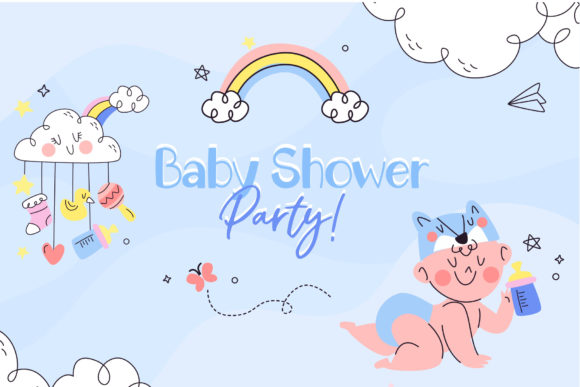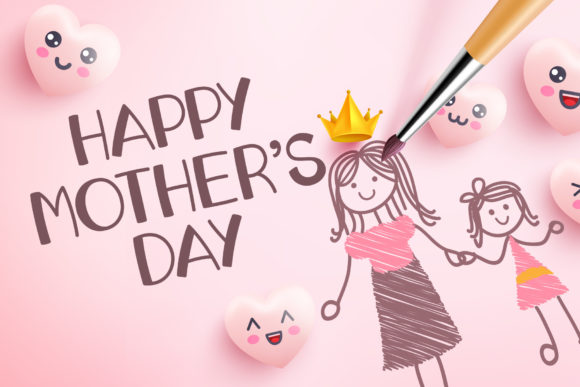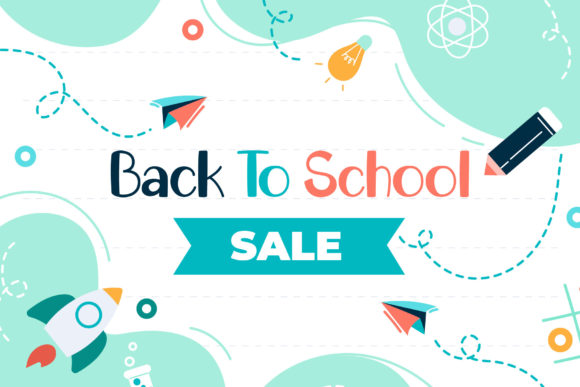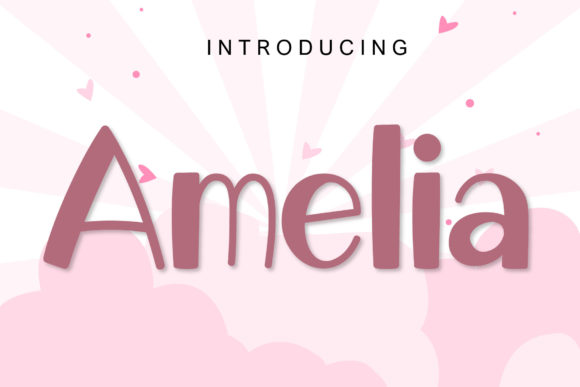
Introducing Amelia Font: The Fun and Playful Display Font for Your Creative Projects
Are you tired of using the same old fonts for your creative projects? Look no further! Amelia Font is a fun and playful display font designed specifically for headlines, titles, and subtitles. Its unique and charming design is sure to add a touch of personality to any project, making it stand out from the crowd.
The Inspiration Behind Amelia Font
The inspiration behind Amelia Font is to create a typeface that looks like it’s written in a cute and playful way. The designer aimed to create a font that is both fun and elegant, making it perfect for a wide range of creative projects. Whether you’re a designer, crafter, or DIY enthusiast, Amelia Font is sure to become your go-to font for adding a personal touch to your work.
What Can You Use Amelia Font For?
Amelia Font is a versatile font that can be used for a variety of projects, including:
- Blog Posts: Add a touch of personality to your blog posts with Amelia Font. Use it for headings, subheadings, and titles to make your content stand out.
- Logos and Branding: Create a unique and memorable logo for your brand with Amelia Font. Its playful design makes it perfect for businesses that want to convey a friendly and approachable image.
- Ads and Marketing Materials: Use Amelia Font to create eye-catching ads and marketing materials that grab attention. Its fun and playful design makes it perfect for promoting products or services.
- Invitations and Greeting Cards: Add a personal touch to your invitations and greeting cards with Amelia Font. Its charming design makes it perfect for special occasions such as birthdays, weddings, and holidays.
- Planners and Photo Albums: Use Amelia Font to add a touch of personality to your planners and photo albums. Its playful design makes it perfect for scrapbooking and other craft projects.
- Decorations: Amelia Font can also be used for decorative purposes, such as creating wall art, signs, and other home decor items.
Why Choose Amelia Font?
So why choose Amelia Font for your creative projects? Here are just a few reasons:
- Unique Design: Amelia Font has a unique and charming design that sets it apart from other fonts.
- Versatility: Amelia Font can be used for a wide range of creative projects, from blog posts to logos and branding.
- Fun and Playful: Amelia Font adds a touch of personality to any project, making it perfect for designers and crafters who want to create fun and playful designs.
Tips for Using Amelia Font
Here are a few tips for using Amelia Font in your creative projects:
- Use it for Headlines and Titles: Amelia Font is perfect for headlines and titles. Use it to add a touch of personality to your content.
- Experiment with Colors: Amelia Font looks great in a variety of colors. Experiment with different colors to find the one that works best for your project.
- Pair it with Other Fonts: Amelia Font can be paired with other fonts to create a unique and interesting design.
- Use it for Decorative Purposes: Amelia Font can be used for decorative purposes, such as creating wall art or signs.
Amelia Font is a fun and playful display font that is perfect for designers and crafters who want to add a touch of personality to their creative projects. Its unique and charming design makes it versatile and easy to use. Whether you’re creating a blog post, logo, or greeting card, Amelia Font is sure to become your go-to font. So why not give it a try and see the amazing results for yourself?